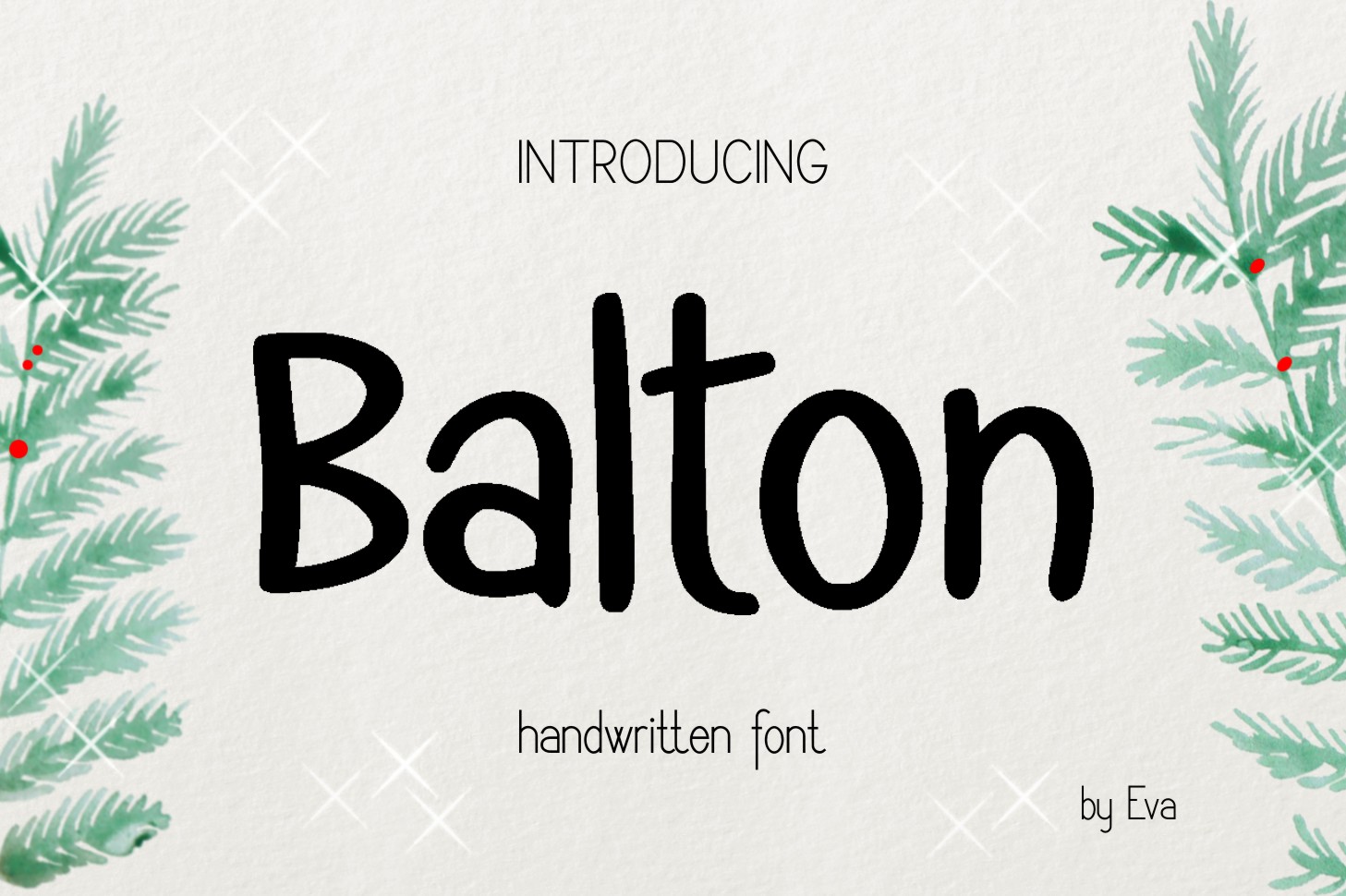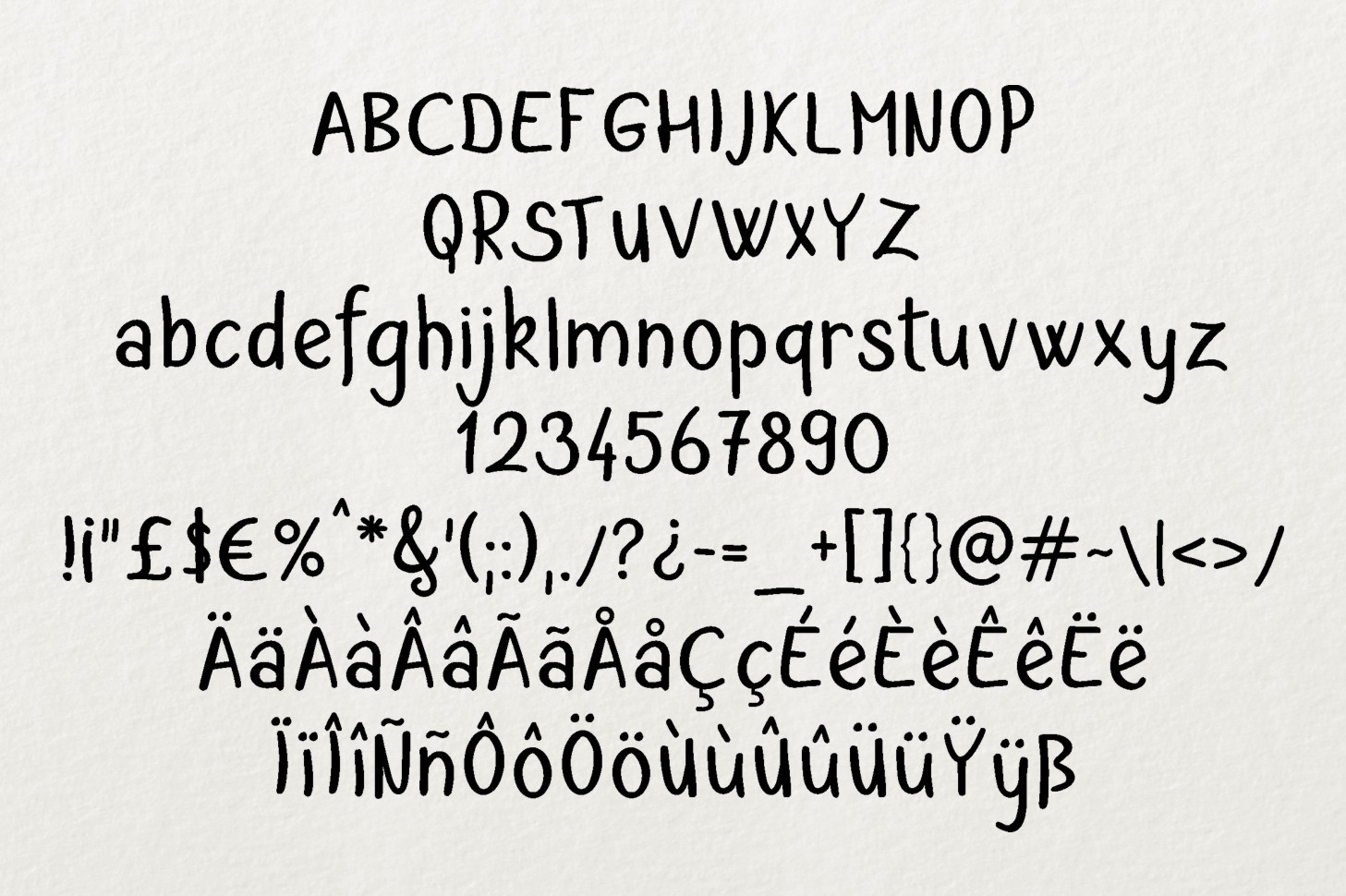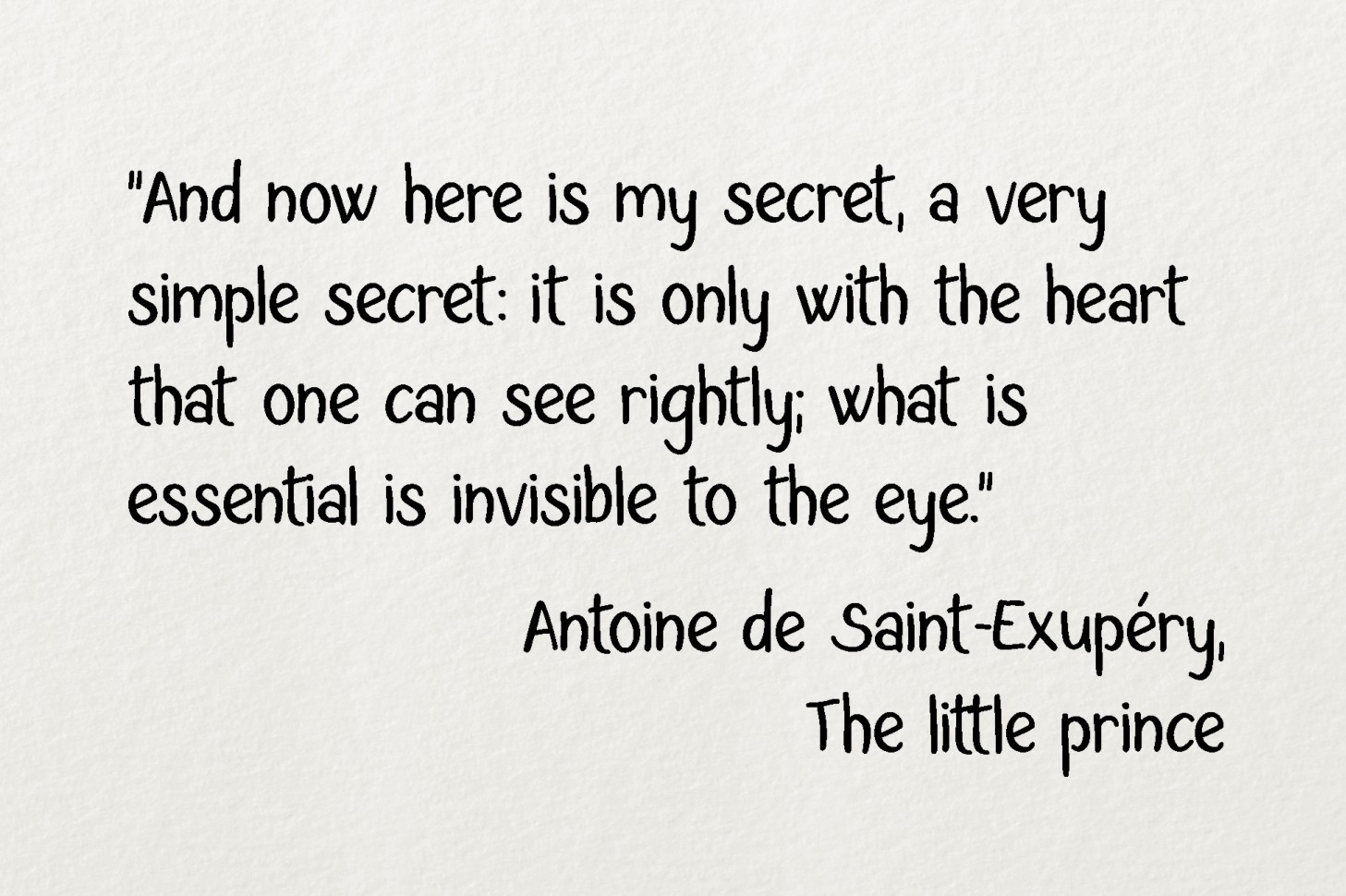
Balton Font
About Balton Font
A fun handwritten font, Balton is a great option for softening your designs. This sans serif font is relaxed and will give your designs or projects an organic feel.
Add Balton, a friendly font, to your sans serif collection.